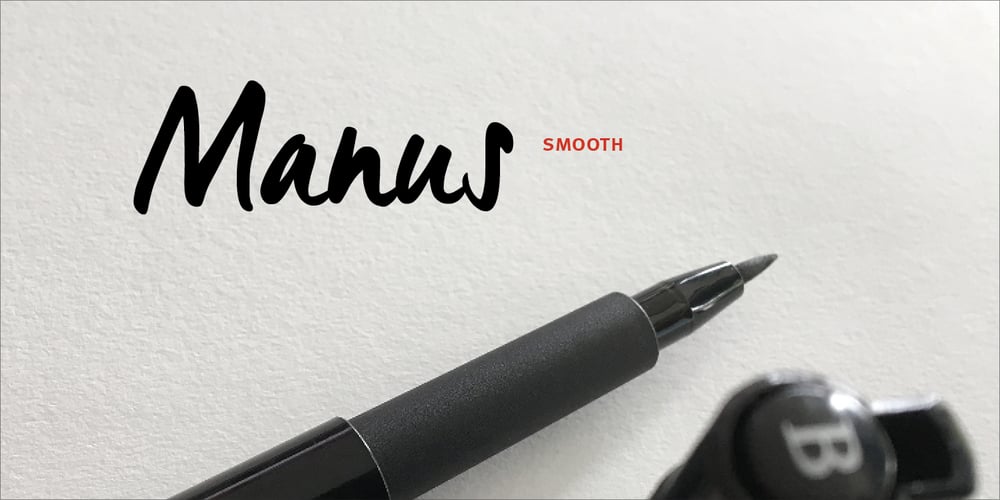
Manus Smooth
Manus Smooth font
Manus Smooth Font Family was designed by Geert Dijkers and published by JOEBOB graphics. Manus Smooth contains 1 styles and family package options. The Manus font family is extended with a new relative: Manus Smooth. Some major and minor adjustments were made, but it still has the look & feel of the original.